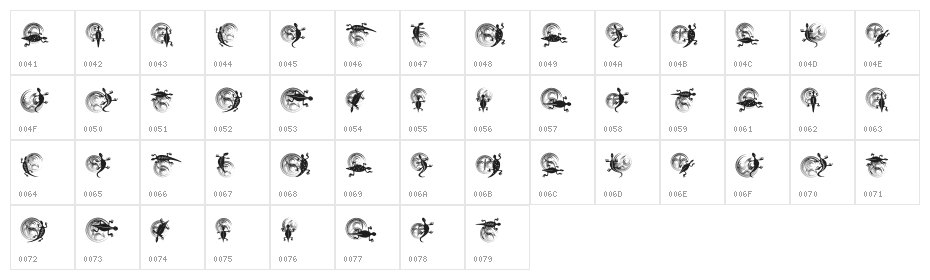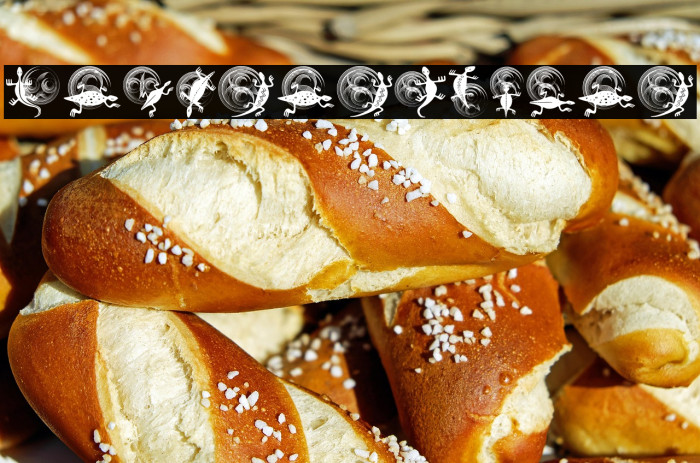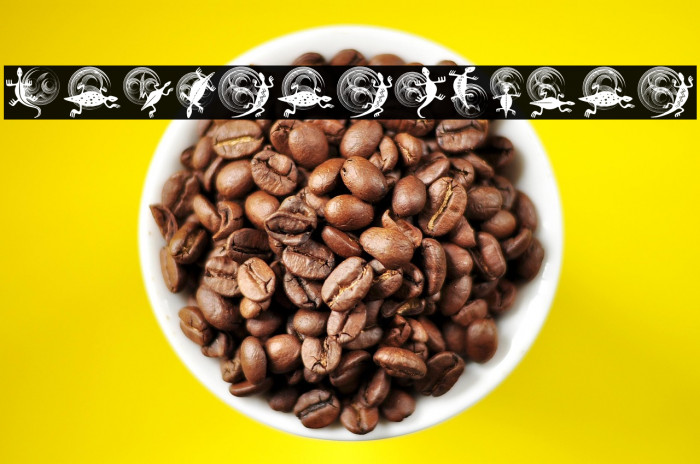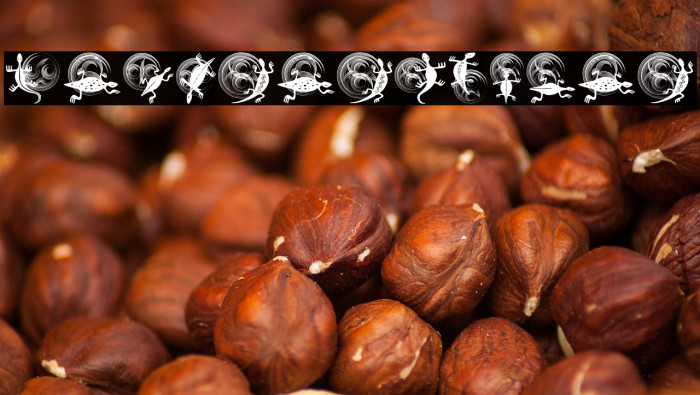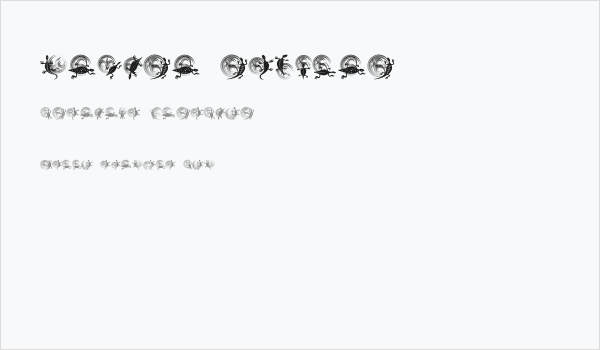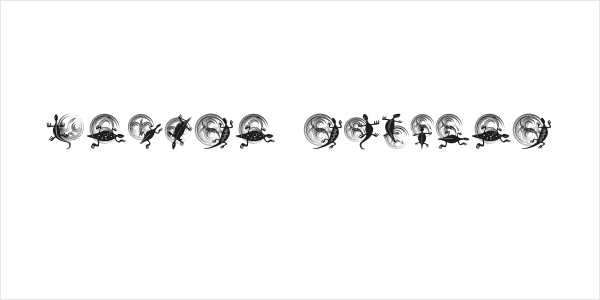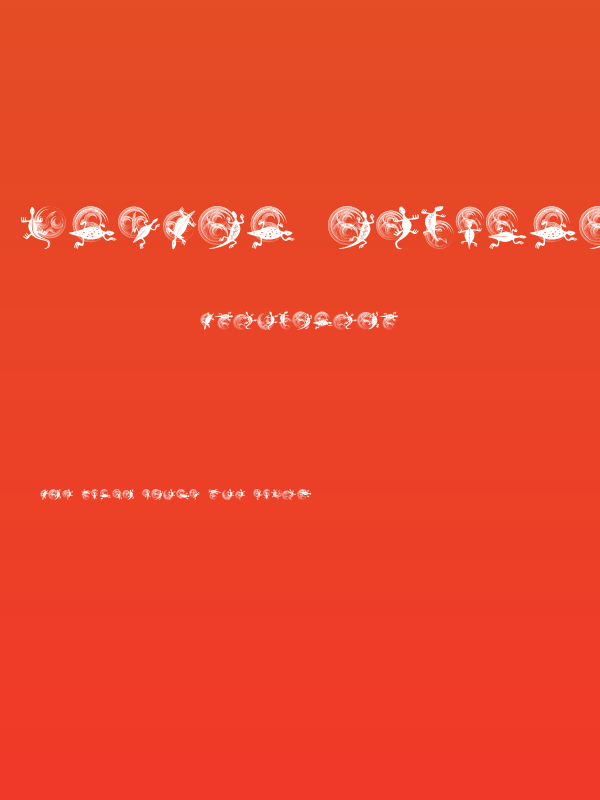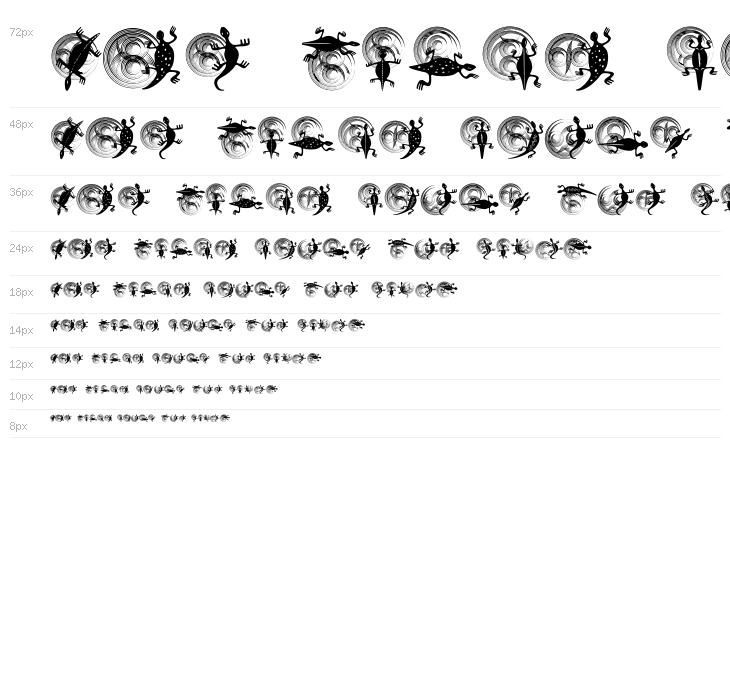
Mantra Regular Font
Mantra Regular Description
This font features a unique and artistic design with each character resembling a stylized lizard intertwined with circular patterns. The intricate details and organic shapes create a whimsical and decorative appearance. The characters are bold and visually striking, making them stand out in any design. The font's playful and imaginative style is perfect for projects that require a touch of creativity and flair. Its distinctiveness makes it suitable for artistic and themed applications, where visual impact is essential.
| Use Case | Logos, Headlines, Artistic designs |
| Proposed Projects | Ideal for artistic projects, themed events, children's book covers, and creative branding. |